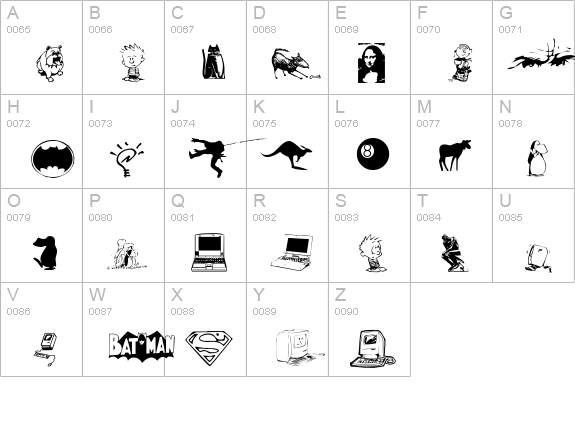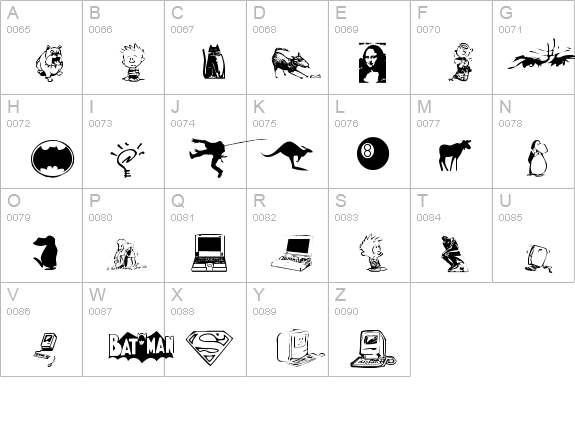
Chung's Dingbats Font Details
Chung's Dingbats font is a whimsical and versatile collection of decorative symbols and icons that add a playful touch to any design project. With a wide range of unique characters, this font is perfect for adding visual interest and creativity to your work. Whether you're creating invitations, posters, or social media graphics, Chung's Dingbats font offers a fun and quirky element that will make your designs stand out. The best part? Chung's Dingbats font is available for free download at FontsMarket.com. Simply visit the website and add this charming font to your collection without any cost. Don't miss out on the opportunity to enhance your designs with this delightful and freely accessible font. Let your creativity shine with Chung's Dingbats!